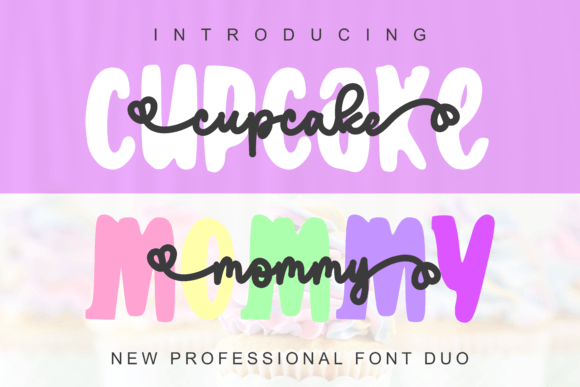
In a world of mundane monotony, let your creativity flourish with Cupcake Mommy Font, the enchanting duo that will cast a spell on your designs! Bathed in the hues of magic, this font family captivates with its delicate strokes and graceful curves. Inspired by the allure of witchcraft, it's the perfect tool to weave captivating tales and evoke a sense of mystery and wonder.
With Cupcake Mommy Sans Serif, experience the purity of minimalism. Its clean lines and subtle elegance lend a timeless charm to your creations, inviting readers to immerse themselves in your words. Pair it with the alluring Cupcake Mommy Script, and watch as your designs transform into captivating works of art. Its flowing strokes and playful ligatures dance across the page, adding a touch of whimsy and enchantment to every letter.
Unleash your imagination and transport your audience to realms of enchantment. Cupcake Mommy is the font of choice for those who dare to embrace the extraordinary. Whether you're crafting spellbinding invitations, enchanting social media posts, or captivating branding materials, this font duo will cast its magic, leaving your audience spellbound.
Embrace the allure of the unknown and let Cupcake Mommy Font guide you through a world of creative possibilities. Its versatility knows no bounds, making it perfect for a myriad of projects. From whimsical greeting cards and eye-catching headlines to enchanting logos and captivating marketing materials, Cupcake Mommy will add a touch of enchantment to every endeavor.
So why settle for ordinary when you can embrace the extraordinary? Let Cupcake Mommy Font be your creative companion, conjuring worlds of wonder and enchanting your audience with its captivating charm. Dare to be different, dare to be magical. Download Cupcake Mommy Font today and let your creativity run wild!